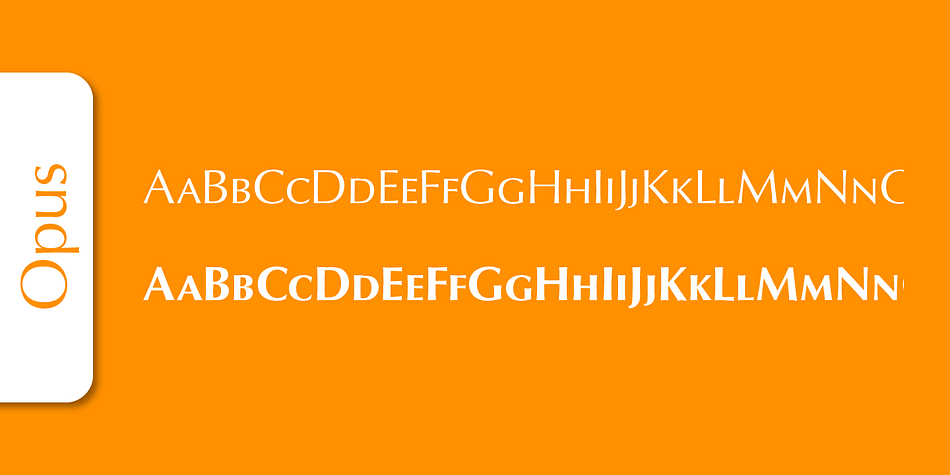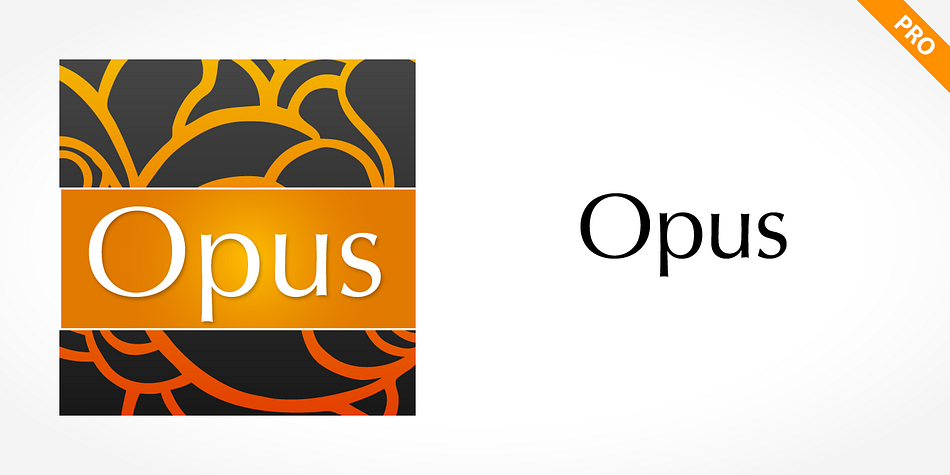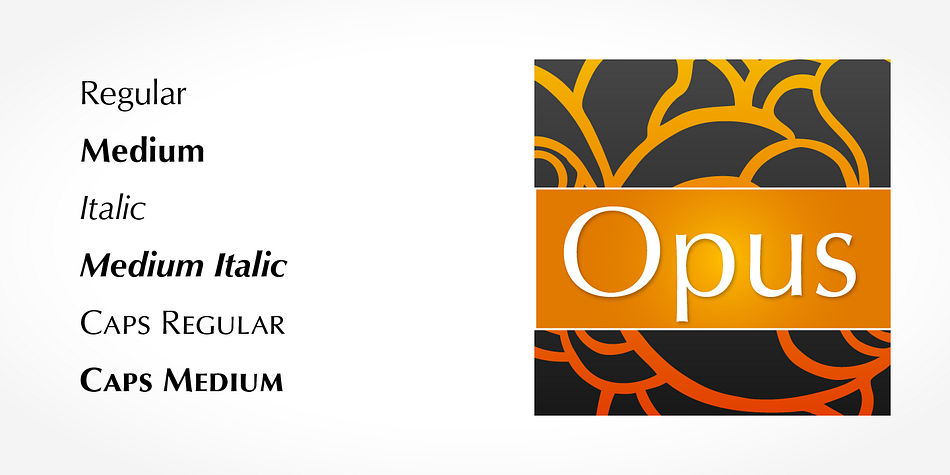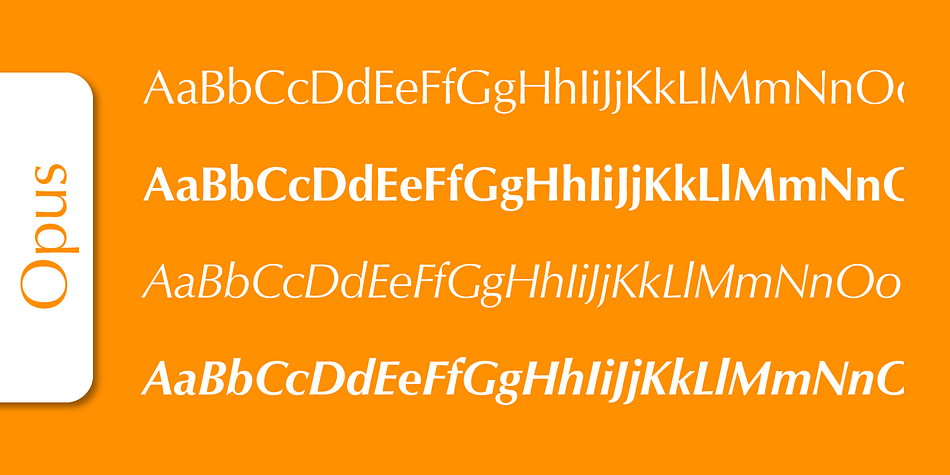
Opus Pro
Opus Pro is a sans serif font family. This typeface has six styles and was published by SoftMaker.
Opus Pro is a typeface that is classically roman in proportion and character but without serifs. The letterforms were designed in the proportions of the Golden Ratio.
With the clear, simple elegance of its sans serif forms and the warmly human touches of its tapering stems, this family has proved popular around the world. Opus Pro is an all-purpose typeface; it works for just about anything from book text to signage.